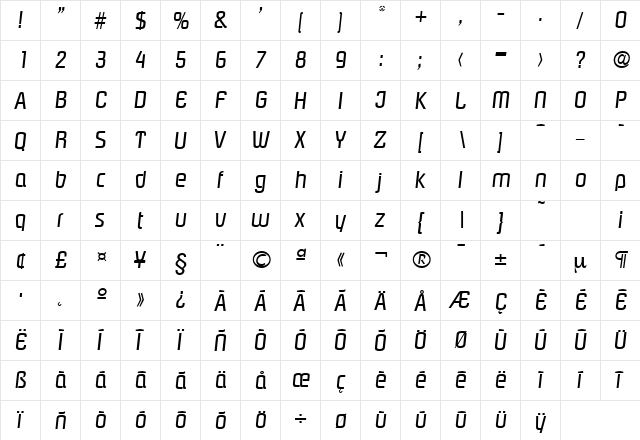
Pasadena-Serial RegularItalic
Design Context for Pasadena-Serial Typeface
Pasadena-Serial is a composed and adaptable typeface that performs quietly and consistently across a wide range of design contexts. The slanted form adds forward momentum and visual energy.
Pro Tip: Try Pasadena-Serial for annotation and caption copy alongside an upright companion — the contrast in angle creates a dynamic but ordered typographic system.